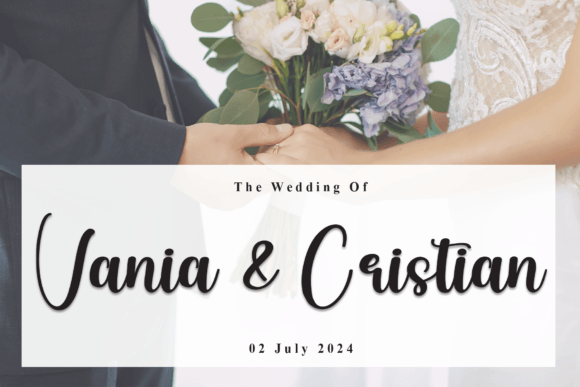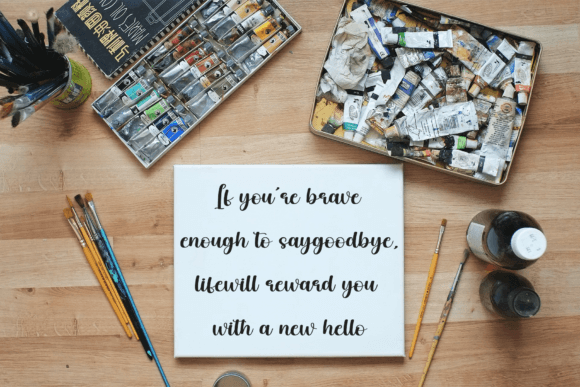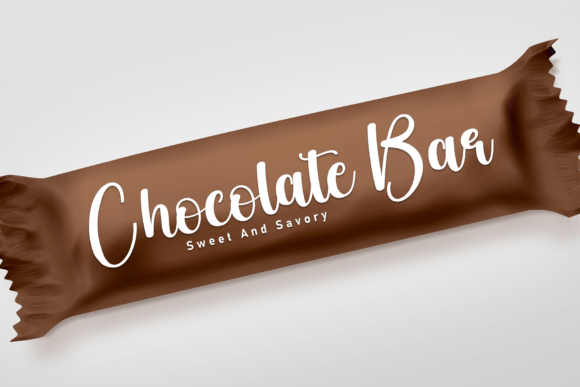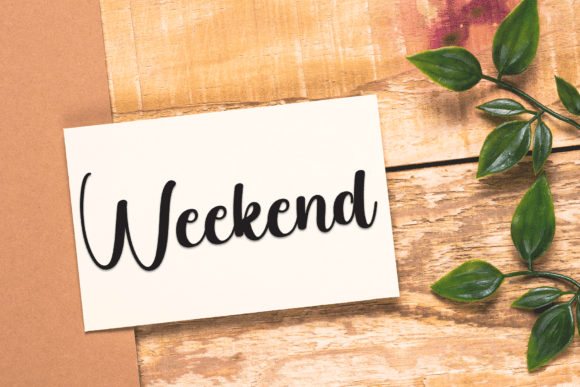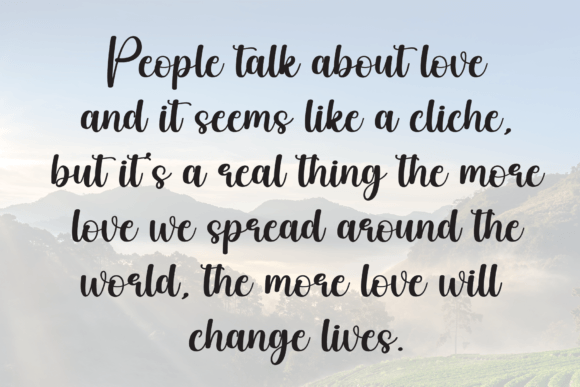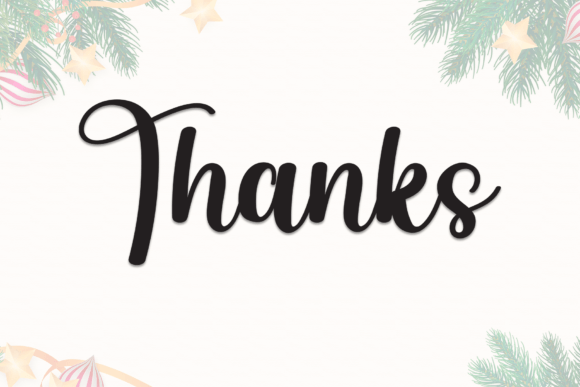
Christmas Font: Add a Touch of Joy and Romance to Your Designs
Are you looking for a font that captures the essence of Christmas? Look no further than Christmas Font, a sweet and cursive handwritten font that’s perfect for adding a touch of joy and romance to your designs. In this article, we’ll explore the features and benefits of Christmas Font, and show you how to make the most of this beautiful font in your design projects.
What is Christmas Font?
Christmas Font is a unique and elegant handwritten font that’s specifically designed to evoke the spirit of Christmas. With its gentle and cursive strokes, this font is perfect for creating designs that are both festive and sophisticated. Whether you’re working on a holiday card, a Christmas party invitation, or a festive gift tag, Christmas Font is sure to add a touch of magic to your project.
Features of Christmas Font
So, what makes Christmas Font so special? Here are just a few of its key features:
- Sweet and cursive handwritten style: Christmas Font has a beautiful, flowing script that’s perfect for creating elegant and sophisticated designs.
- Versatile: This font is suitable for a wide range of design projects, from holiday cards and invitations to gift tags and festive posters.
- Easy to read: Despite its elegant style, Christmas Font is still easy to read, making it perfect for designs that need to convey a message or tell a story.
- High-quality: Christmas Font is a high-quality font that’s designed to produce crisp and clear results, even at small sizes.
Benefits of Using Christmas Font
So, why should you choose Christmas Font for your design projects? Here are just a few of the benefits of using this beautiful font:
- Adds a touch of joy and romance: Christmas Font is specifically designed to evoke the spirit of Christmas, adding a touch of joy and romance to your designs.
- Perfect for festive designs: Whether you’re working on a holiday card, a Christmas party invitation, or a festive gift tag, Christmas Font is the perfect choice.
- Unique and elegant: Christmas Font has a unique and elegant style that’s sure to make your designs stand out from the crowd.
Design Ideas Using Christmas Font
So, how can you use Christmas Font in your design projects? Here are a few ideas to get you started:
- Holiday cards: Use Christmas Font to create beautiful and elegant holiday cards that are sure to impress your friends and family.
- Christmas party invitations: Create festive and sophisticated Christmas party invitations using Christmas Font.
- Gift tags: Add a touch of elegance and sophistication to your gift tags using Christmas Font.
- Festive posters: Use Christmas Font to create eye-catching and festive posters that are perfect for promoting your holiday events.
Tips for Using Christmas Font
Here are a few tips for using Christmas Font in your design projects:
- Experiment with different colors: Christmas Font looks great in a range of colors, so don’t be afraid to experiment and find the perfect shade for your design.
- Use it with other fonts: Christmas Font pairs well with other fonts, so try combining it with a bold font for a striking contrast.
- Pay attention to spacing: Make sure to pay attention to the spacing between letters and words to ensure that your design looks elegant and sophisticated.
Christmas Font is a beautiful and elegant handwritten font that’s perfect for adding a touch of joy and romance to your design projects. With its sweet and cursive strokes, this font is sure to evoke the spirit of Christmas and make your designs stand out from the crowd. Whether you’re a designer or a crafter, Christmas Font is a must-have font for your design toolkit.